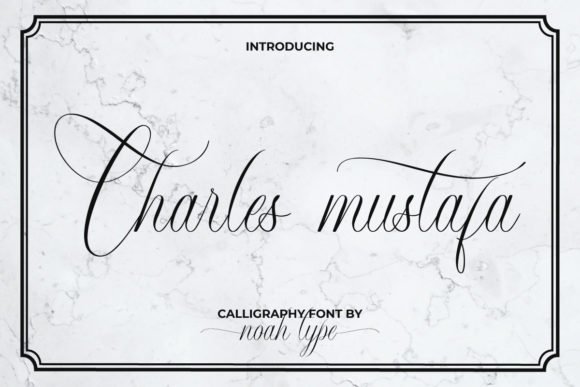
Unleashing the Art of Calligraphy with Charles Mustafa Font
Have you ever been stuck in a design rut, struggling to add that extra touch of elegance to your project? I know I have! But then, it happens – a spark of inspiration, a dash of creativity, and suddenly the design comes alive. For me, it was the discovery of the Charles Mustafa Font that made all the difference. This stunning calligraphy font is more than just a tool, it’s an artistic expression that can elevate any design to new heights.
Charles Mustafa Font is a masterclass in sophistication, with its beautiful characters, stylish swashes, and gorgeous alternates. Whether you’re designing an invitation, a luxurious brand identity, or a promotional campaign, this font is the perfect companion. And the best part? It’s PUA encoded, making it easy to access all the glyphs and swashes you need to create truly breathtaking designs.
- Font Family: Charles Mustafa Font is a unique, high-end font family consisting of multiple styles.
- Character Set: Supports a wide range of characters, including Latin, Cyrillic, and Greek alphabets, as well as various symbols and punctuation marks.
- Unique Characteristics: Charles Mustafa Font features intricate details, elegant lines, and a sophisticated aesthetic, making it ideal for luxury brands, high-end designs, and premium content.
Charles Mustafa Font Review
I’ve had the chance to work with the Charles Mustafa font, and I must say it’s a unique addition to any design project. ✨ One thing that stands out is its exotic, vintage feel, which can add a touch of sophistication to any text-based element. The font’s script-like characteristics make it perfect for creating eye-catching headings or quotes.
Another advantage is its versatility. The font comes in multiple weights and styles, allowing designers to experiment with different looks and feels. Whether you’re going for a classic, elegant look or something more modern and edgy, Charles Mustafa has got you covered.
- ⚠️ Inconsistencies in font rendering: I’ve noticed that the font doesn’t render perfectly across all devices and screen resolutions, which can lead to some inconsistencies in the design.
- ⚠️ Limited language support: The font only supports a limited number of languages, which can be a problem for designers working on projects that require multilingual support.
Overall, I think Charles Mustafa is a great addition to any designer’s toolkit. While it may have some limitations, its unique charm and versatility make it a great choice for designers looking to add some personality to their projects.
Getting the Most Out of Charles Mustafa Font
Charles Mustafa Font is ideal for creating modern, elegant designs. To get the most out of it, use it in conjunction with clean lines and minimal graphics. You can also experiment with different font sizes and colors to create visual interest.
Charles Mustafa Font is suitable for a variety of designs, including:
- Business cards and resumes
- Brand logos and typography
- Infographics and data visualizations
Alternatives to Charles Mustafa Font
Fontin is a modern sans-serif font that offers a clean and elegant look. It’s suitable for use in corporate branding, tech companies, and modern websites. Compared to Charles Mustafa Font, Fontin has a more neutral tone and is more versatile in its application. It’s also more readable at smaller font sizes.
Montserrat is a geometric sans-serif font that’s perfect for urban and modern designs. It’s ideal for use in headlines, titles, and body text where a strong, bold font is required. Compared to Charles Mustafa Font, Montserrat has a more geometric and structured look, making it better suited for designs that require a strong, modern aesthetic.